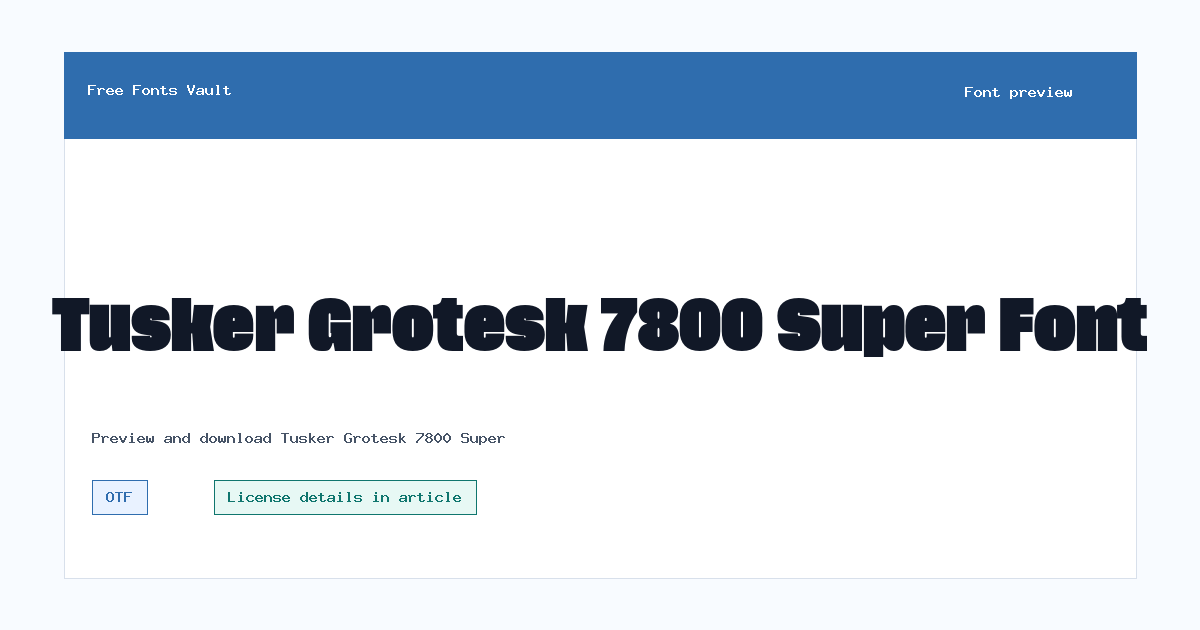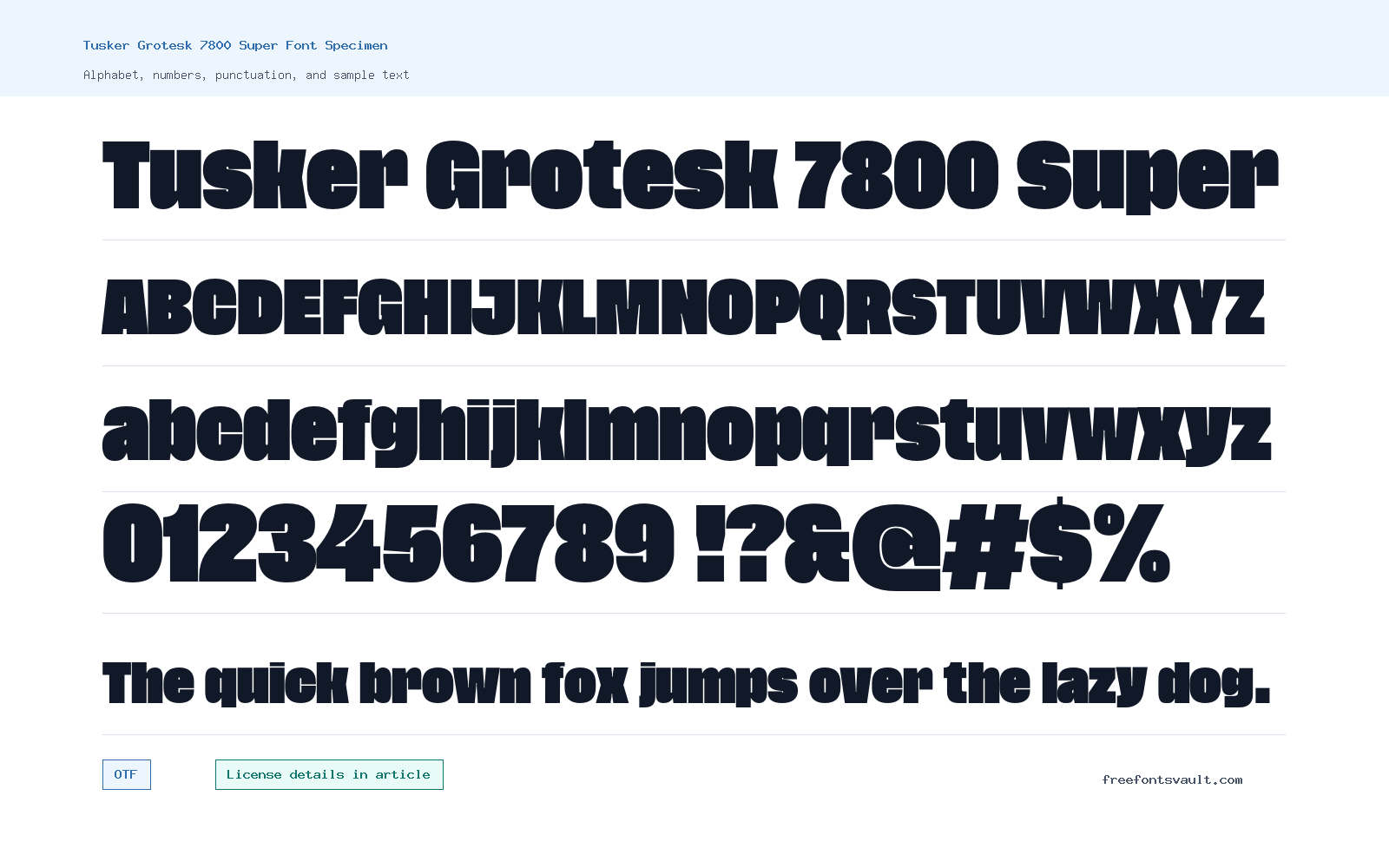
Tusker Grotesk 7800 Super
- Designer Lewis McGuffie
- Foundry Lewis McGuffie
Tusker Grotesk 7800 Super is a display font file in OTF format, suited to short, bold text where the type itself needs to carry visual weight.
About Tusker Grotesk 7800 Super Font
Tusker Grotesk 7800 Super is part of the Tusker Grotesk naming style and is credited to Lewis McGuffie. The “Grotesk” name points toward a sans-serif display direction, while “7800 Super” reads like a heavier or more forceful style name. Use it where a compact line of text can stand out clearly, such as a title, poster word, banner heading, or large preview sample.
Tusker Grotesk 7800 Super is most useful when the type needs to behave like a graphic element. Keep the message direct, avoid too many competing fonts around it, and check how the spacing feels at the final size. A strong display face can carry a composition, but it still needs enough surrounding space to stay readable.
- Display-focused grotesk-style naming, best tested at headline sizes
- Credited to Lewis McGuffie
- Useful for short words, titles, labels, and bold visual text
- Posters and large headlines
- Website hero titles
- Logo-style text tests and wordmarks
- Social graphics, thumbnails, and banners
- Short labels or navigation accents when readability remains clear
Tusker Grotesk 7800 Super is credited to Lewis McGuffie, with the foundry also listed as Lewis McGuffie.
Is Tusker Grotesk 7800 Super good for body text?
It is better treated as a display font first. Try it in the preview at your intended size before using it for longer reading text.